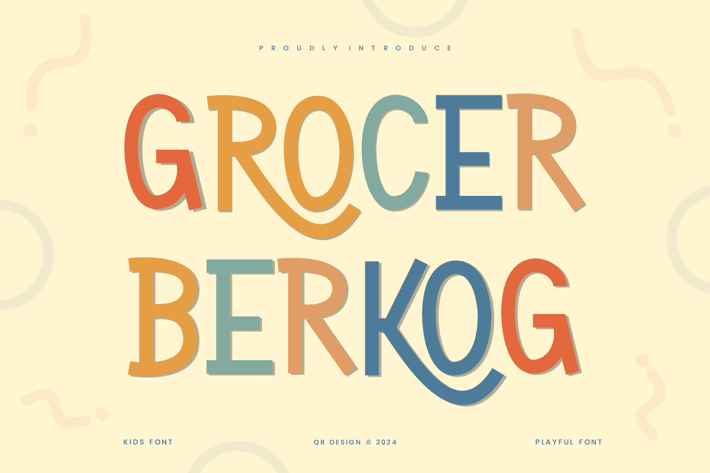
Grocer Berkog - Paint & Playful Font
Grocer Berkog Font is a playful and authentic display font.
The font is suitable for any branding project like poster, logo, kids, and many more.